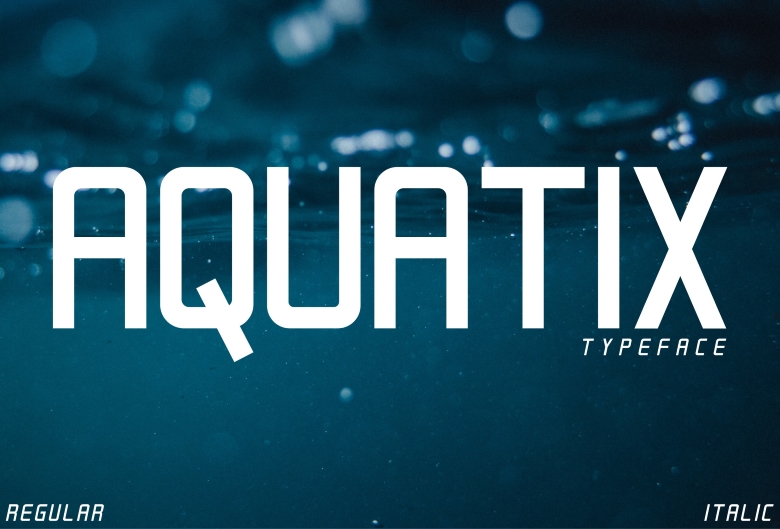
Aquatix Font
Aquatix can therefore be best described as a sans-serif font that is clean and new that gives a modern touch to the designs it is used on. They are non-exaggerated, and thus perfect for different digital uses, including web and app design, branding, editorial (magazine) design, and other modern-purpose designs.
Aquatix Sans Serif Font